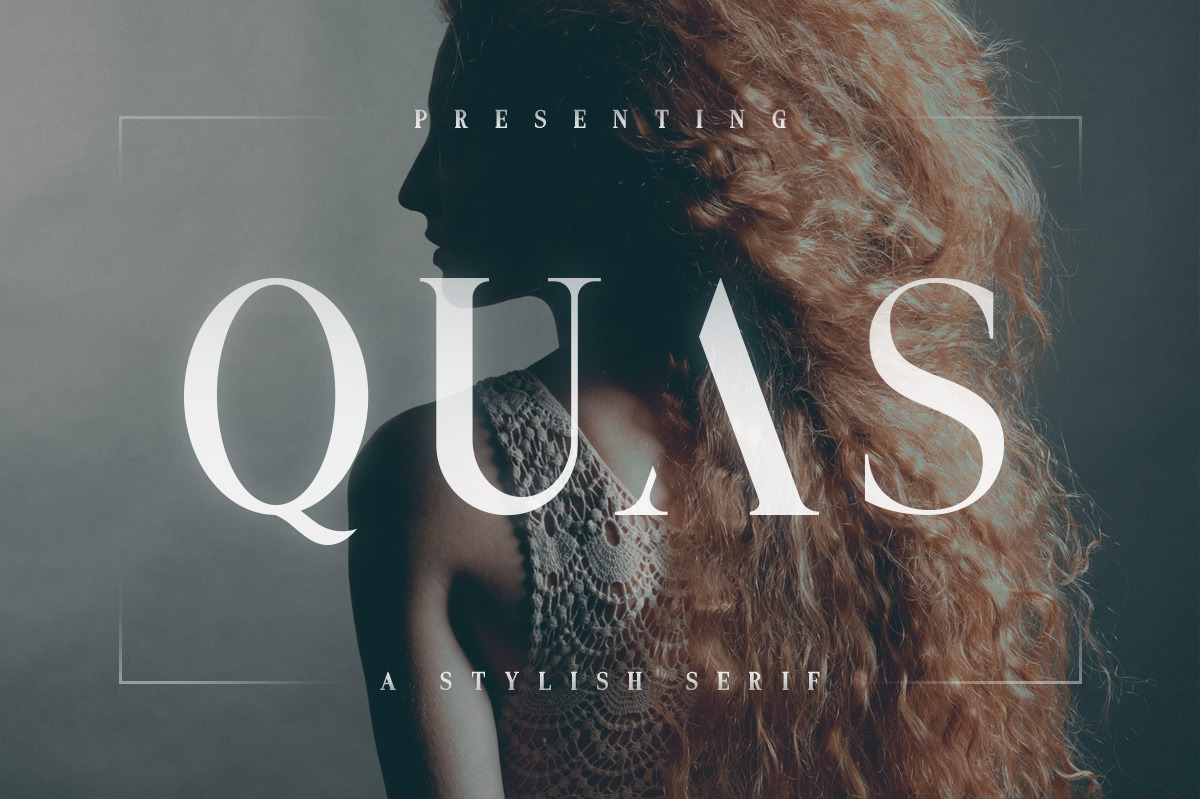
Quas Typeface
Quas is the perfect typeface to create sleek and elegant headlines and logo designs. It pairs well with both script and sans-serif fonts and features multiple weights and styles.
- Uppercase Multilingual Letters
- Bold and Regular Weights
- Minimal Stencil Style
- Distressed Corroded Style